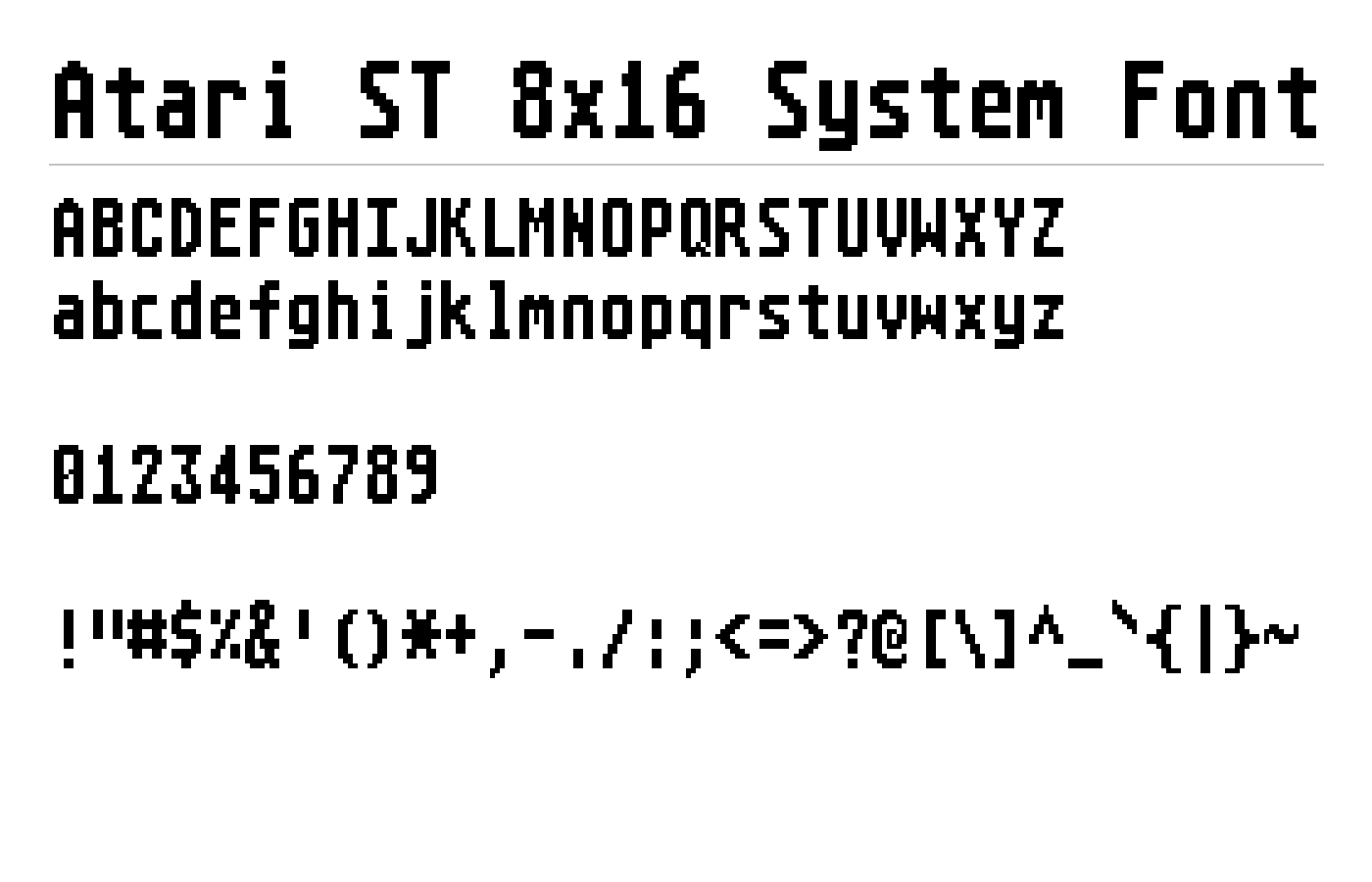
Atari ST 8x16 System Font is a pixelated monospaced sans serif typeface with a vintage digital aesthetic reminiscent of classic computer displays and early video games. Its narrow, blocky letterforms with consistent weight and minimal decorative elements offer clear readability at small sizes, making it ideal for retro-themed designs, coding environments, or any context where a nostalgic, tech-inspired look is desired.
Atari ST 8x16 System Font
About Atari ST 8x16 System Font